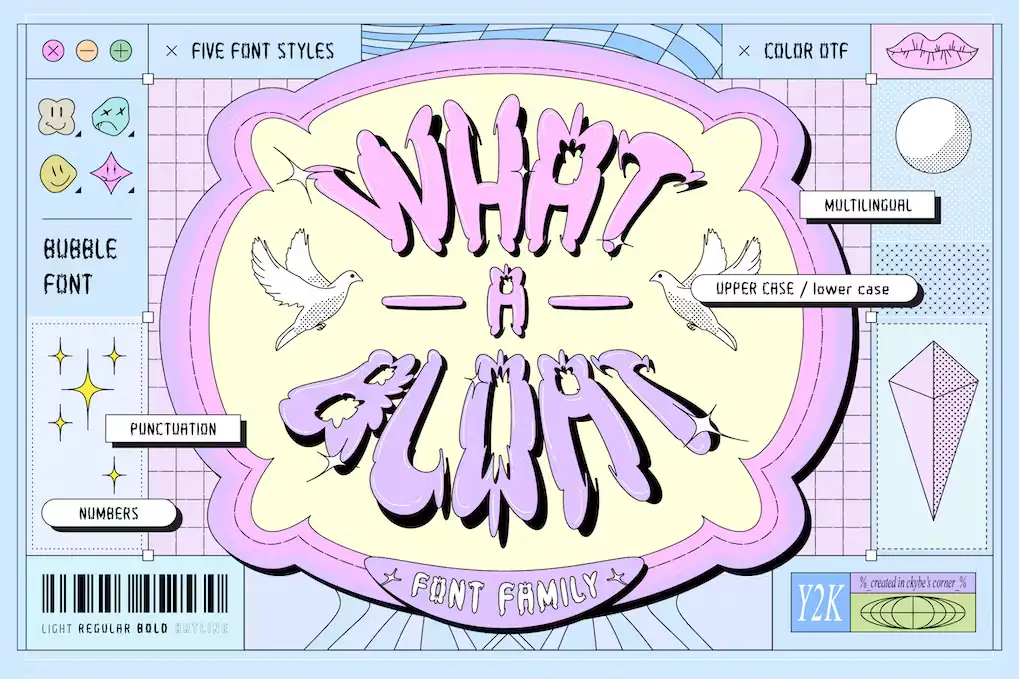
What-a-bloat | Font Family
Discover the What-a-bloat font family, a vibrant tribute to the late 90s and early 2000s bubble-inspired typography. This unique typeface features five distinct styles: Regular, Light, Bold, Bold Pink, and Outline. Each style includes a complete set of uppercase and lowercase letters, numbers, punctuation, symbols, and multilingual characters, making it versatile for any creative project.
What-a-bloat embodies the spirit of the Y2K aesthetic, combining retro wave grotesque with a trendy grunge flair. It captures the chaotic freedom of early 2000s culture, reminiscent of rave parties, anti-design flyers, and oversized platform shoes. This font is perfect for anyone looking to infuse their designs with a nostalgic yet modern vibe.
- ✅ Five Unique Styles → Choose from Light, Regular, Bold, Bold Pink, and Outline to match your project needs.
- ✅ Complete Character Set → Includes uppercase, lowercase, numbers, punctuation, symbols, and multilingual letters.
- ✅ Versatile Usage → Ideal for posters, flyers, branding, and any creative endeavor requiring a retro touch.
- ✅ Graphic Neobrutalism Influence → Perfectly captures the essence of maximalism and chaotic design trends.
What-a-bloat stands out with its unique blend of nostalgia and modernity, making it a must-have for designers who want to evoke the energy of the early 2000s. This font family is trusted by creatives worldwide for its ability to enhance any project with a playful yet bold aesthetic. Whether you’re designing for a retro-themed event or a contemporary art piece, What-a-bloat will elevate your work.